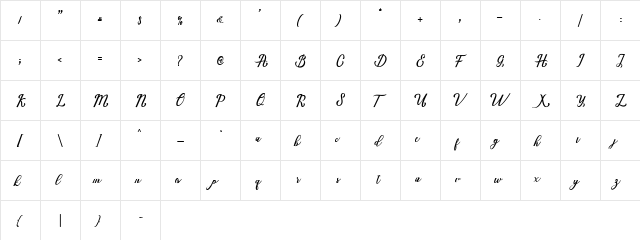
Marria Script Regular
Design Context for Marria Script Typeface
Marria Script flows with the natural rhythm of handwritten lettering, making it ideal for designs that call for warmth and personal expression.
Font Pairing: Combine Marria Script with a simple geometric sans for maximum contrast — the tension between flowing curves and clean structure is a classic typographic pairing.
Pro Tip: Pair Marria Script with a clean sans-serif for supporting text. The contrast between fluid script and geometric structure creates an elegant typographic hierarchy.